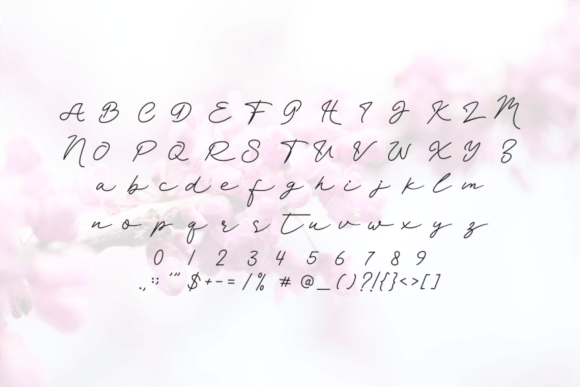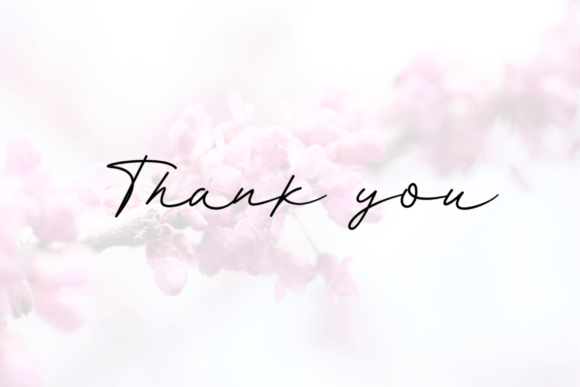
Introduction to Rasinga Font
As a designer, there’s nothing quite like the thrill of stumbling upon the perfect font for a project. The moment when the words just seem to come alive, and the entire design falls into place. For many creatives, that moment is what makes all the hard work worth it. And for those who have been searching for the perfect script font, we’re excited to introduce you to Rasinga Font – a modern, bold, and authentic design resource that’s sure to elevate any branding project.
Whether you’re working on a logo, a t-shirt design, or an export, Rasinga Font is the perfect addition to your design arsenal. Its high-quality, transparent background makes it a versatile choice for any creative project. And the best part? You can download it for free, making it an accessible resource for designers of all levels.
Key Features of Rasinga Font
- Unique, stylish font with a transparent background, perfect for use on various design elements.
- Available in 3 different sizes: 20pt, 30pt, and 40pt, allowing for versatile use in various design contexts.
- Designed with a high resolution (300 DPI), ensuring crisp and clear display on high-resolution screens.
- Supports various languages, making it a valuable resource for international design projects.
- Can be used for a wide range of creative projects, from logos and branding to typography and graphics.
Honest Review: Rasinga Font
I recently had the chance to try out the Rasinga Font, and I must say, it’s been a game-changer for my design projects. The moment I saw it, I knew I had to give it a shot.
Here are the things that work well for me:
- High-quality design: The Rasinga Font is beautifully crafted with intricate details that make it perfect for creative projects.
- Transparent background: This feature makes it easy to use the font on various backgrounds without worrying about any unsightly lines or outlines.
- Limited font styles: While the Rasinga Font is beautiful, it’s available in limited styles, which might not be ideal for designers who prefer more variety.
- Not suitable for small text: Due to its intricate design, the Rasinga Font may not be the best choice for small text or headlines.
Overall, I’m impressed with the Rasinga Font, and I would definitely recommend it to designers who are looking for a high-quality, free design resource. It’s perfect for creative projects where you want to make a statement.
Tips for Getting the Most Out of Rasinga Font
Use a transparent background to create a clean and minimalist design. Experiment with different font sizes and styles to add visual interest to your project. Consider using the Rasinga Font in combination with other design elements, such as graphics and images, to create a unique and engaging visual identity.
Rasinga Font is a versatile design resource that can be used in a variety of creative projects, including logos, branding, and marketing materials. It’s also a great choice for web design, social media graphics, and print materials. With its high-quality design and transparent background, Rasinga Font is a valuable addition to any design resource library.